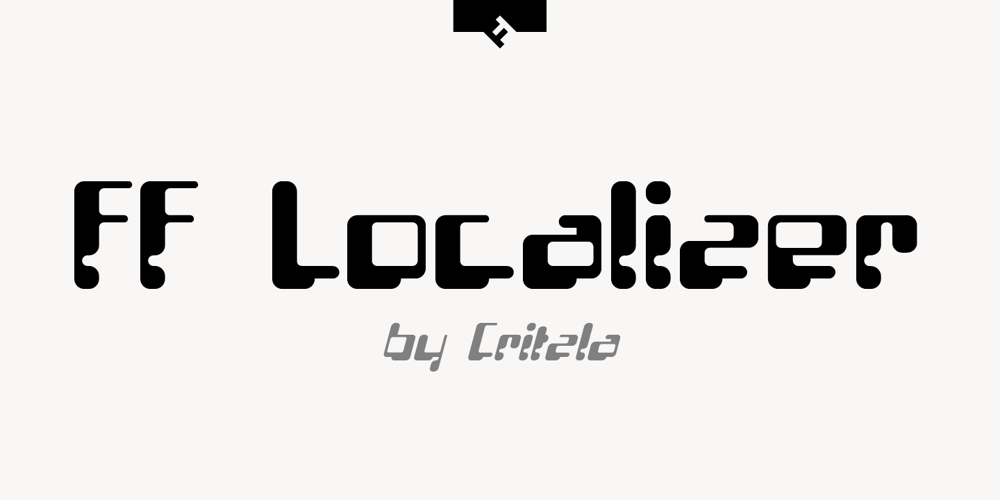
FF Localizer Font Family was designed by Critzla and published by FontFont. FF Localizer contains 4 styles and family package options. German type designer Critzla created this display FontFont in 1996. The family contains 4 weights and is ideally suited for advertising and packaging, festive occasions, logo, branding and creative industries as well as music and nightlife. FF Localizer provides advanced typographical support with features such as ligatures and case-sensitive forms. It comes with proportional oldstyle and proportional lining figures.